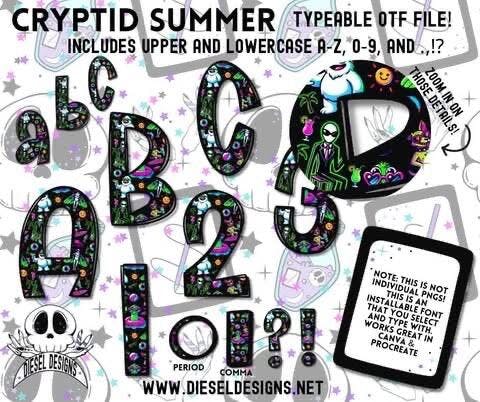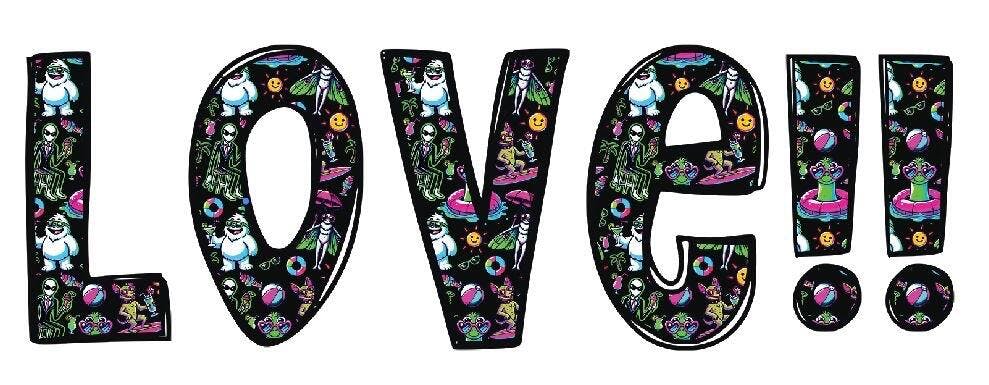
Cryptid Summer OTF Typeable Font
Get ready to LEVEL UP your designs with these bold, typeable OTF fonts! Each one includes:
✔️ Uppercase A–Z
✔️ Lowercase a–z
✔️ Numbers 0–9
✔️ Punctuation: ! ? , .
🎨 Every font comes packed with personality!